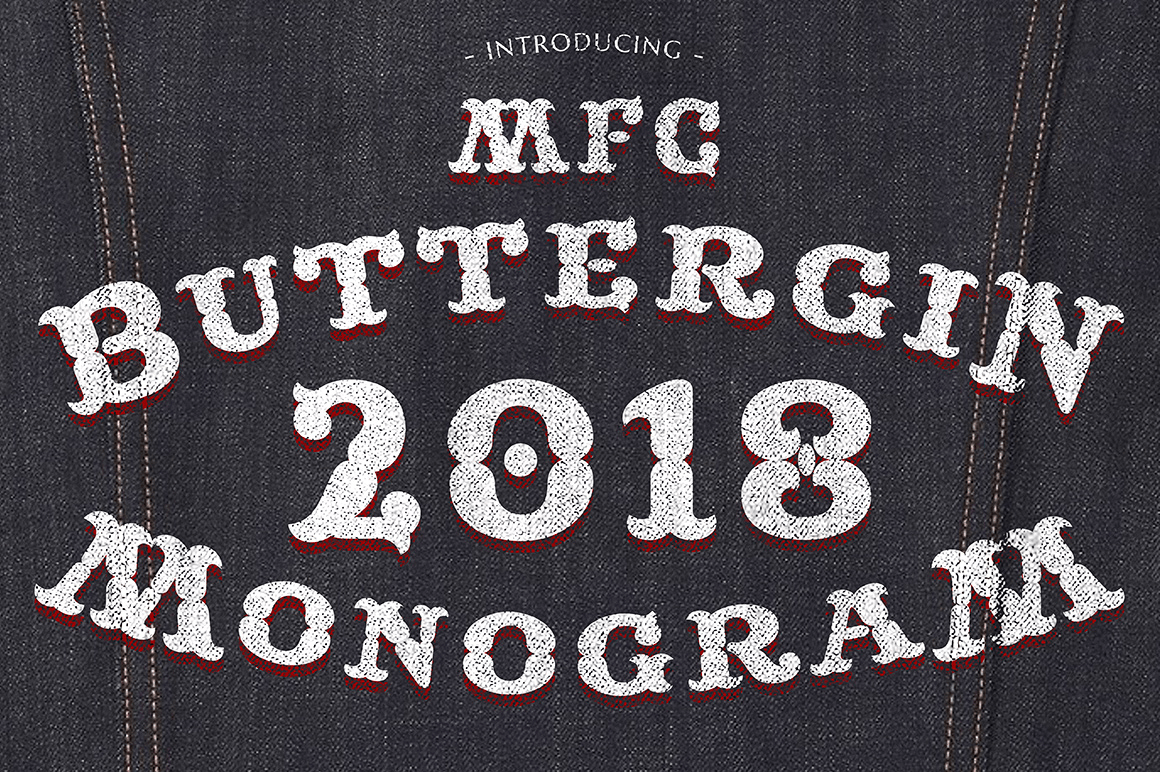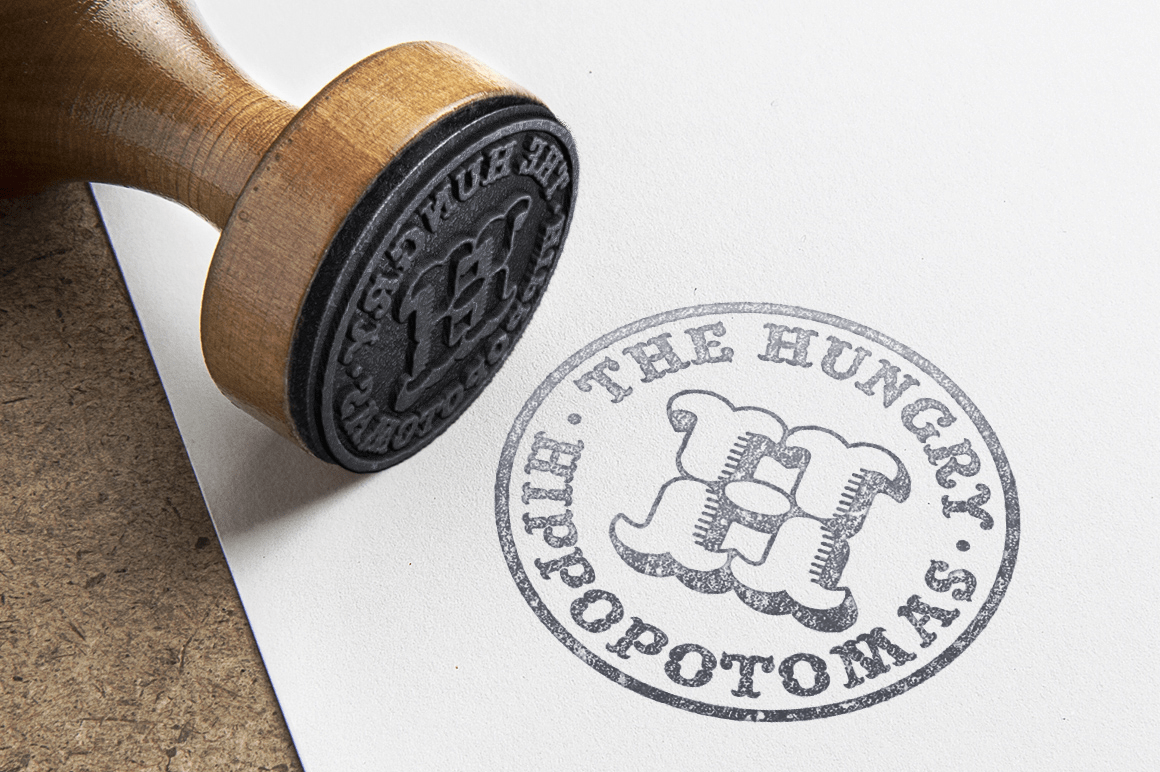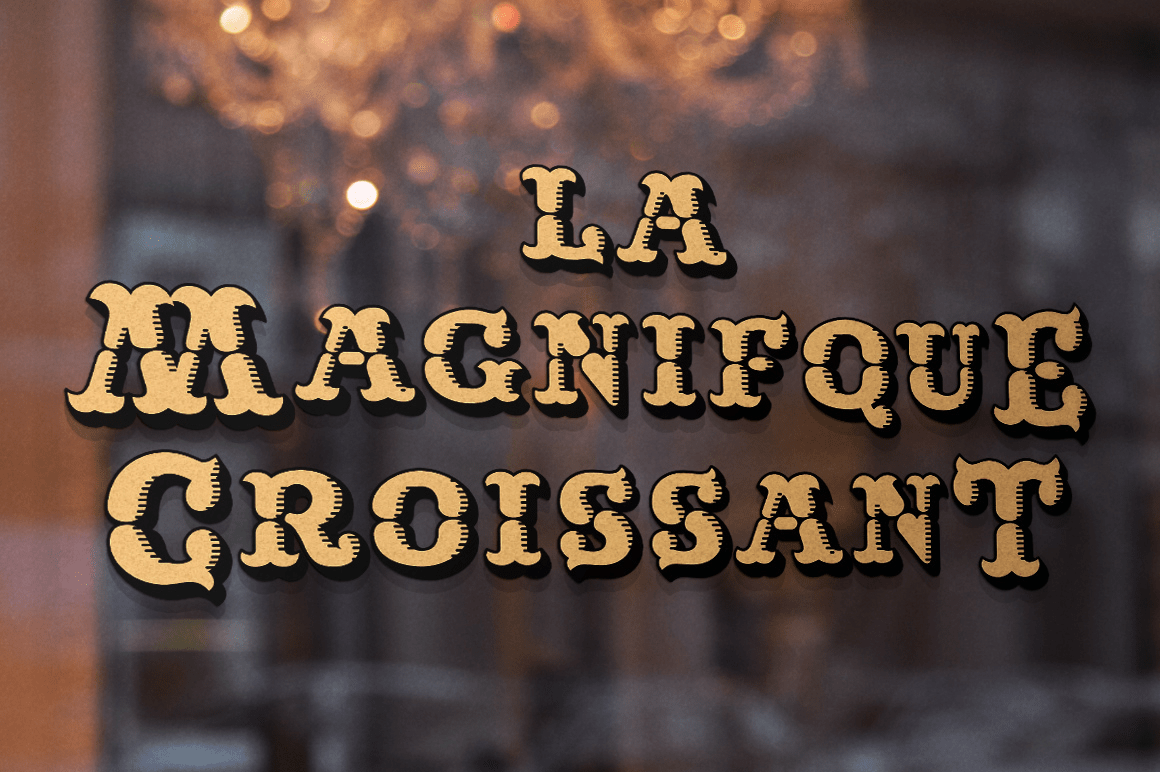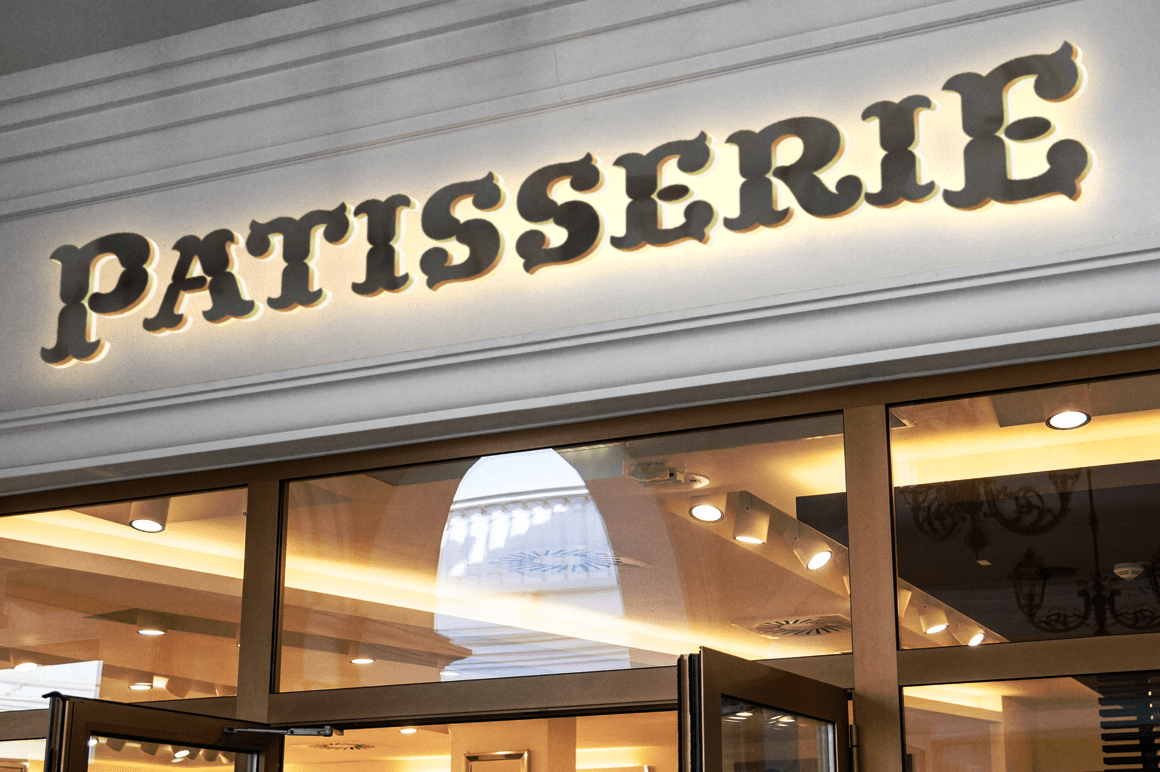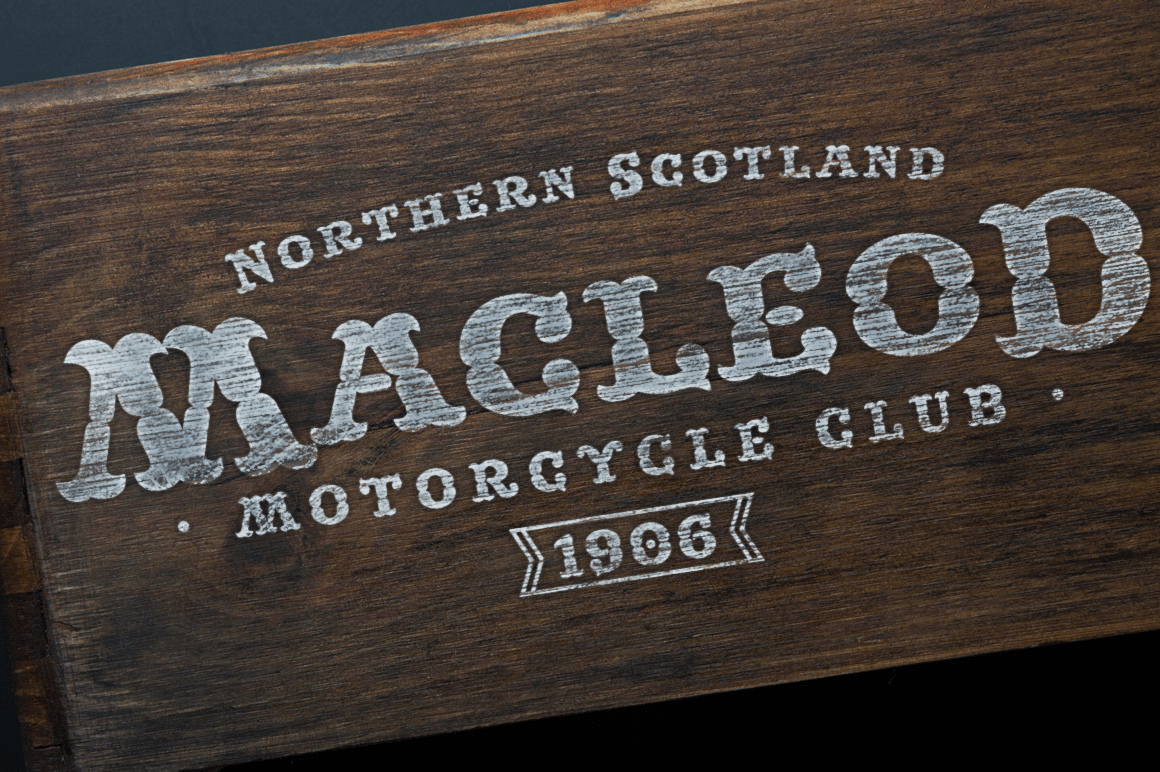
MFC Buttergin Monograms
Font Family by Monogram Fonts Co
The inspiration source for Buttergin Monogram is a highly ornate lettering style from the book, ?Letters and Lettering? by Carlyle & Oring. This fantastic lettering style was originally depicted only with Capitals and Numbers, which we've lovingly recreated to include smallcaps for the purpose of Monogramming, Signs, and Headlines. From the original style that had a drop shadow and line shading, we extrapolated solid and a clean outline with drop shadow styles for more versatility of use.